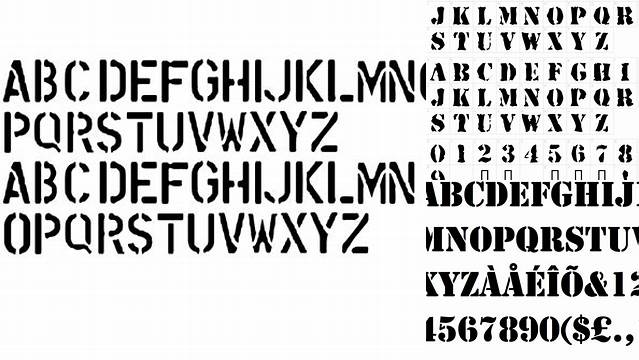
Stencil Bold Fonts: Free Downloads & Design Tips
Hey design lovers! Ever stumbled upon a font that just screams bold and impactful? That's the magic of stencil fonts, and today, we're diving deep into the world of stencil bold fonts, especially those you can snag for free! Whether you're crafting a vintage poster, designing a military-inspired logo, or just want to add a rugged edge to your next project, stencil bold fonts are your secret weapon. Get ready, because we're about to explore where to find these awesome fonts, how to use them like a pro, and why they have such a timeless appeal. We'll also touch on some design tips to make your work truly stand out. So, grab your favorite beverage, get comfy, and let's get this design party started!
Why Stencil Bold Fonts Are a Designer's Best Friend
So, why are stencil bold fonts so darn popular, guys? It all comes down to their unique visual characteristics. Think about it: stencils were originally designed to create clean, repeatable lettering on surfaces where a brush or pen might smudge. This required little 'bridges' or breaks in the letters to keep the stencil itself intact. This structural necessity gives stencil fonts their signature look – a bit industrial, a bit military, and undeniably strong. The 'bold' aspect just amplifies this. A bold stencil font isn't just strong; it's commanding. It grabs attention, demands to be read, and conveys a sense of power and permanence. This makes them perfect for headlines, signage, logos, and any design element where you need to make a serious statement. Imagine a gritty, distressed background with a massive bold stencil font title – it just oozes character and tells a story before anyone even reads the words. They’re incredibly versatile too. While they have that distinct industrial vibe, they can be adapted for a surprising range of aesthetics, from retro to modern, depending on how you pair them and the context you use them in. We'll explore some of these creative applications later, but trust me, these fonts are way more than just a one-trick pony. They're a design tool that can elevate your work from good to absolutely unforgettable. The raw, unpolished feel of many stencil fonts adds an authentic touch that digital perfection often lacks, which is why they continue to be a favorite among designers looking for that extra bit of grit and personality.
Where to Find Awesome FREE Stencil Bold Fonts
Alright, let's get to the good stuff – where can you actually find these amazing stencil bold fonts without breaking the bank? Luckily for us, the design community is super generous, and there are tons of fantastic resources for free fonts. My go-to spots usually include Google Fonts, which has a surprisingly robust selection of high-quality, free typefaces. You might need to do a little digging, but you can often find great stencil-inspired or genuinely stencil fonts there. Another absolute gem is Font Squirrel. They curate a massive library of 100% free for commercial use fonts, and their search filters are top-notch. Just type in 'stencil' and prepare to be amazed by the options. DaFont and FontSpace are also popular haunts for free fonts. While you need to be a bit more careful with licensing on these sites (always double-check if the font is free for commercial use!), they host an enormous variety of styles, including plenty of bold stencil fonts with that distinctive distressed or industrial look. Sometimes, independent foundries or designers will release their own stencil bold fonts for free as a promotion. Keep an eye on design blogs, Behance, and Dribbble – you never know when a gem will pop up! Remember to always check the licensing terms associated with any font you download, especially if you plan to use it for commercial projects. Most free fonts come with a specific license (like OFL - Open Font License), which outlines how you can use them. Stick to reputable sites, and you'll find a treasure trove of free stencil bold fonts ready to power up your designs. It's all about exploring and knowing where to look. Happy font hunting, everyone!
Mastering the Art: Design Tips for Stencil Bold Fonts
Now that you've got your hands on some killer stencil bold fonts, how do you actually use them effectively? It's not just about dropping them onto your canvas, guys. To truly make your designs shine, you need to think about context and pairing. Stencil bold fonts are inherently strong and visually noisy, so they work best when you let them be the star. Use them for headlines, titles, or key call-to-action elements where you want maximum impact. Think big! These fonts look incredible when scaled up. For body text or smaller, supporting elements, it’s usually better to opt for a simpler, cleaner sans-serif or serif font that complements the stencil's ruggedness without competing with it. This contrast creates visual hierarchy and makes your design easier to read. Another pro tip is to play with texture and distressing. Many stencil bold fonts already come with a built-in distressed look, which is fantastic. If yours doesn't, you can add subtle textures like grunge overlays, paper grain, or even subtle ink bleed effects in your design software. This enhances the authentic, vintage, or industrial feel that stencil fonts are known for. Experiment with color, too! While black or dark grays often suit the utilitarian nature of stencil fonts, don't be afraid to try vibrant colors for a modern twist or muted, earthy tones for a more subdued, rugged aesthetic. Think about the overall mood you want to convey. Are you going for a classic military look? A retro movie poster? A DIY craft project? The color palette you choose will significantly influence the perception of your stencil bold font. Finally, consider the spacing – both letter-spacing (kerning) and line-spacing (leading). Bold stencil fonts can sometimes feel a bit cramped, especially at larger sizes. Adjusting the spacing can make them more legible and visually appealing. Don't be afraid to experiment with these elements; that's where the real design magic happens!
The Timeless Appeal of Stencil Typography
What is it about stencil bold fonts, and stencil typography in general, that keeps them relevant decade after decade? It’s a fascinating blend of history, function, and raw aesthetic appeal. Historically, stencils were tools of practicality and necessity, used in everything from marking crates during wartime to labeling mail and creating industrial signage. This utilitarian origin imbues stencil fonts with an inherent sense of purpose and durability. They speak of function, resilience, and a no-nonsense approach. When designers adopt stencil bold fonts, they’re often tapping into this legacy, evoking feelings of strength, authority, and a touch of rebellion or DIY spirit. The visual breaks, or 'counters,' that define a stencil font give it a distinctive rhythm and texture that sets it apart from conventional lettering. This unique character makes it instantly recognizable and memorable. In a digital world often dominated by smooth, uniform, and sometimes sterile typography, the gritty, imperfect nature of a well-executed stencil bold font offers a welcome contrast. It adds authenticity and a human touch, even in highly digital contexts. Whether it’s the distressed edges of a vintage stencil or the sharp, clean lines of a modern interpretation, this font style possesses a graphic power that can anchor a design and communicate a message with immediate impact. It’s a style that has successfully transitioned from purely functional to a deliberate aesthetic choice, proving its versatility and enduring charm. The visual weight of a bold stencil font ensures it stands out, making it a favorite for impactful branding, editorial design, and anything that requires a strong visual presence. This inherent strength, coupled with its rich history, is why stencil bold fonts continue to capture the attention of designers and audiences alike.
Creative Applications for Stencil Bold Fonts
Guys, the possibilities with stencil bold fonts are practically endless! Seriously, think outside the box. Need to design a poster for a local band with a punk or industrial vibe? Boom, stencil bold font for the band name. Working on a t-shirt design that needs to look tough and urban? Again, a bold stencil font is your best bet. How about creating a unique wedding invitation with a rustic or industrial chic theme? You could use a slightly softer, more decorative stencil font for the names. For logos, a stencil bold font can communicate strength, reliability, and a no-nonsense attitude, perfect for brands in construction, logistics, automotive, or even artisanal food producers wanting a handcrafted, robust feel. Think about packaging – a bold stencil font on a craft beer label or a gourmet coffee bag screams quality and distinctive character. Even in digital design, they have their place. Use them sparingly for buttons or call-to-action elements on a website that has a grunge or edgy aesthetic. They can also be fantastic for social media graphics, especially for event announcements or promotional posts where you want to grab attention immediately. Imagine a series of Instagram stories promoting a workshop – a strong stencil bold font headline can instantly convey the workshop's theme, be it woodworking, metalworking, or even a fitness boot camp. They're also surprisingly great for creating custom typography for blog headers or feature images. Don't limit yourself to just text; consider using stencil bold fonts as elements within a larger graphic design. You could create custom patterns, textures, or even incorporate individual letters as design motifs. The key is to match the font’s inherent personality to the project’s goals and aesthetic. When in doubt, go bold – that's what these fonts are made for!
Conclusion: Make Your Designs Pop with Stencil Bold
So there you have it, folks! We’ve explored the power, the history, and the incredible versatility of stencil bold fonts. From finding awesome free downloads to mastering design techniques, you’re now equipped to use these impactful typefaces like a true pro. Remember, stencil bold fonts aren't just letters; they're a statement. They bring grit, strength, and a timeless appeal to any design project. Whether you’re aiming for a vintage look, an industrial vibe, or just need to make text truly stand out, these fonts have got your back. Keep experimenting, keep exploring those free font resources, and most importantly, have fun with it! Your next amazing design is just a font away. Go forth and create something bold!